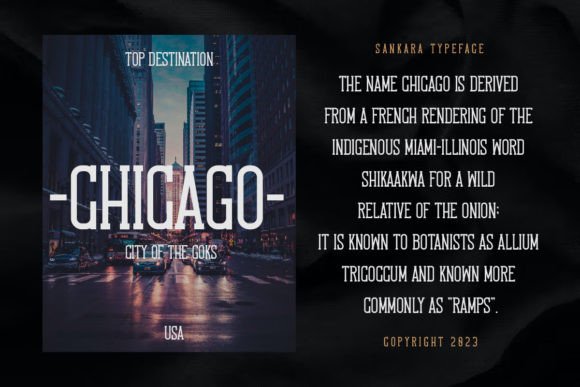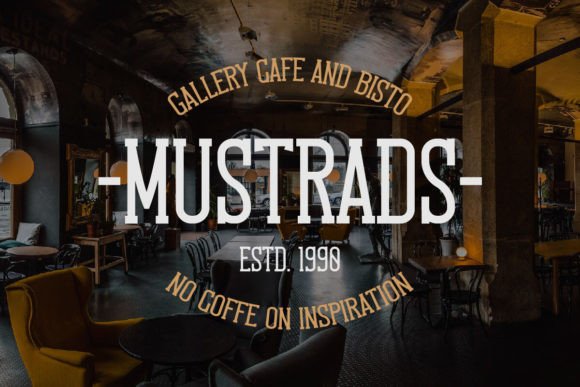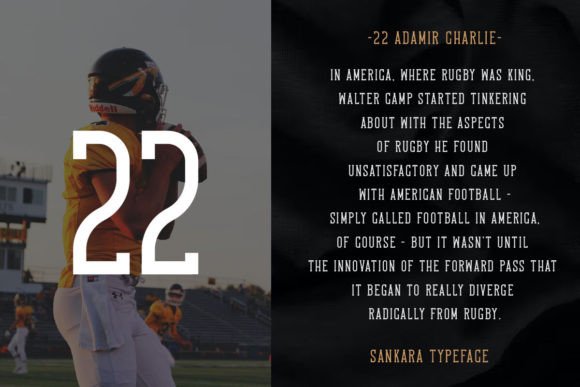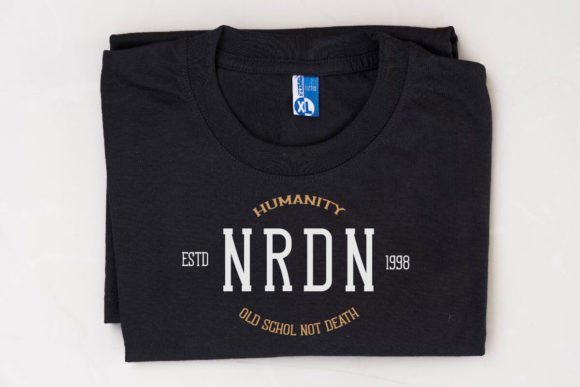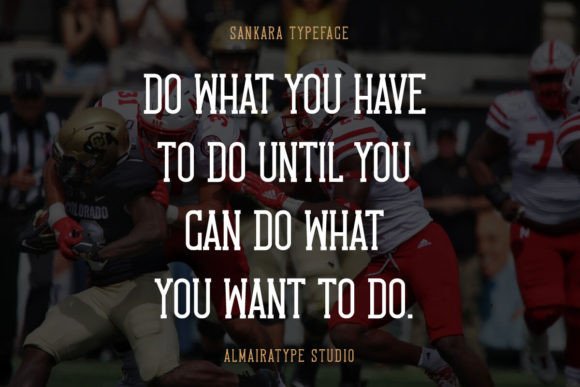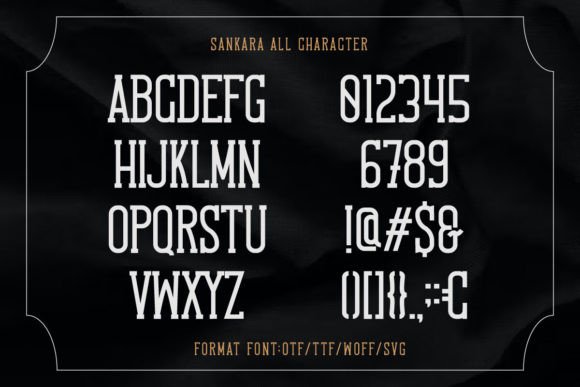
Introduction to Sankara Font
Sankara is a modern and sleek slab serif font that epitomizes sophistication and versatility.
Its clean, well-defined lines and sturdy serifs give it a timeless yet contemporary appeal Ideal for branding, editorial design, or advertising, Sankara strikes a balance between classic elegance and a modern aesthetic.
Key Features of Sankara Font
Why Choose Sankara Font?
Sankara Font offers exceptional quality and versatility, making it a valuable addition to your design toolkit. Whether you’re creating for personal projects or commercial use, Sankara Font delivers professional results.